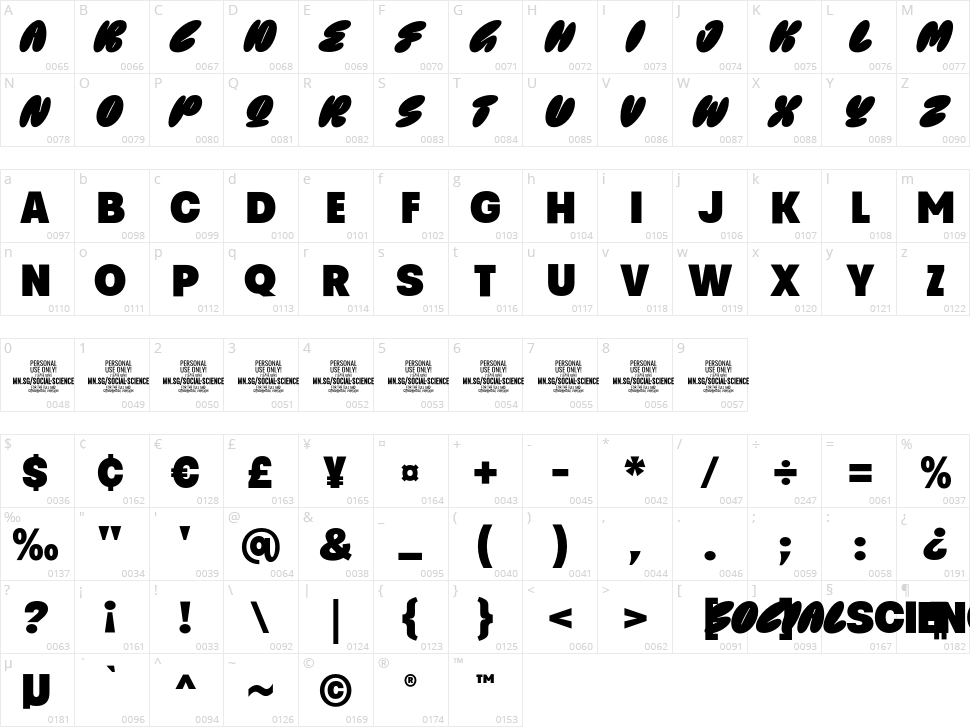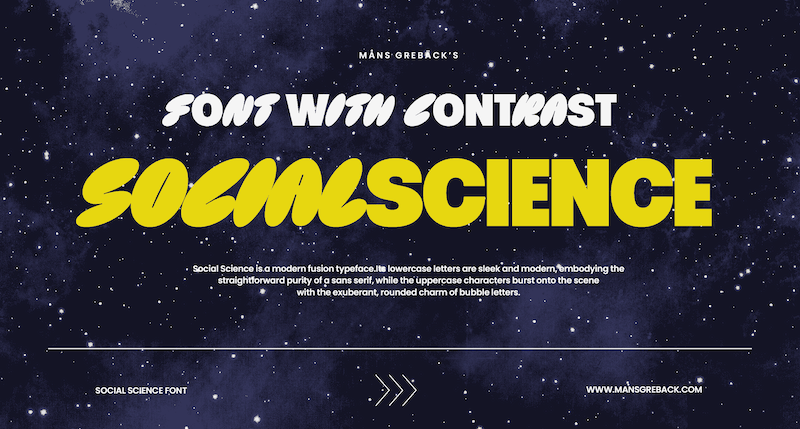
Social Science
Social Science is a modern fusion typeface.
The graffiti-inspired bubbles bring a sense of urban cool to the design, while the straight and confident sans stands for the stability of your branding.
Social Science is a modern fusion typeface.
The graffiti-inspired bubbles bring a sense of urban cool to the design, while the straight and confident sans stands for the stability of your branding.